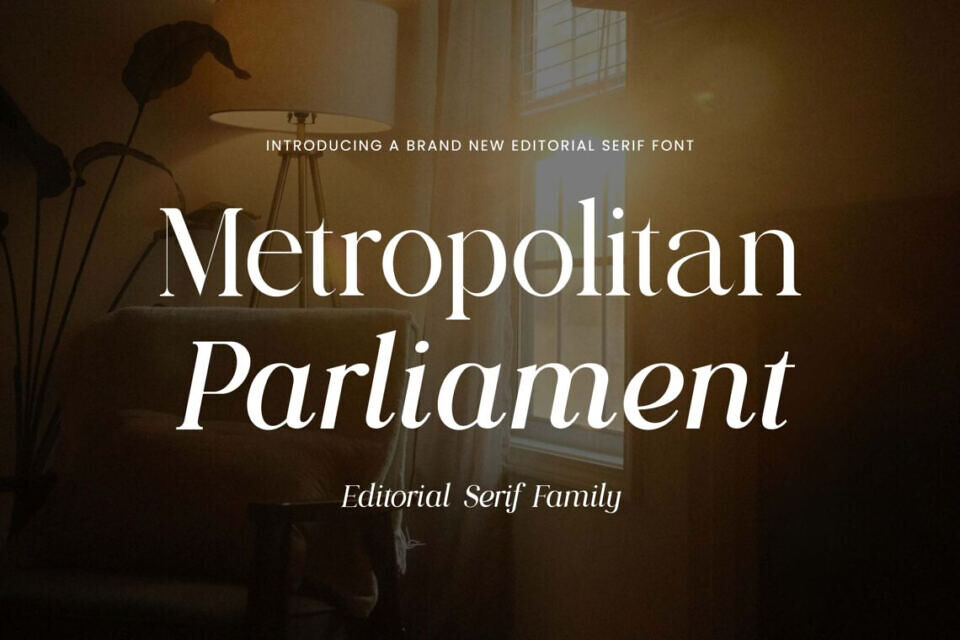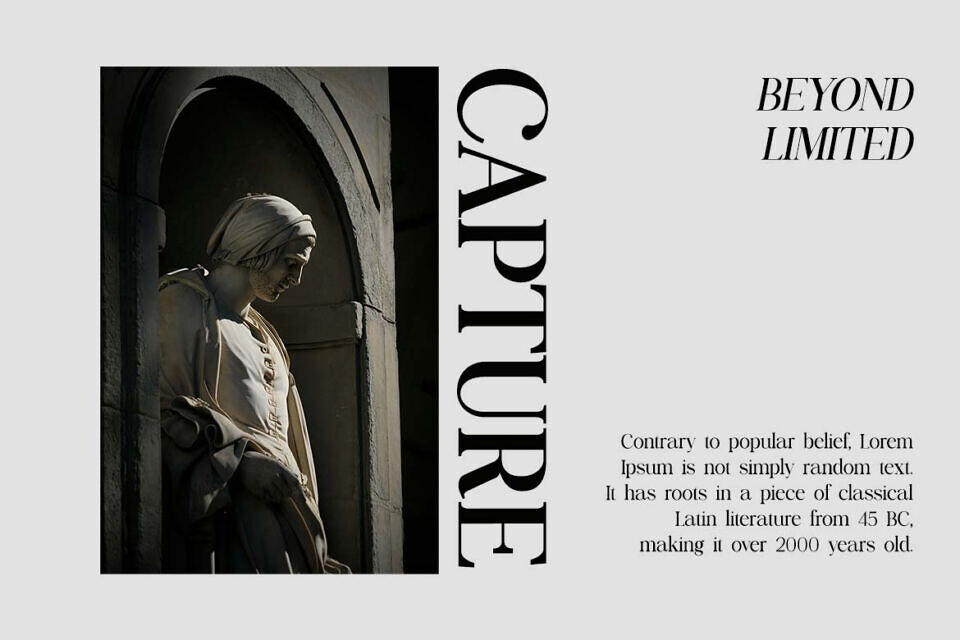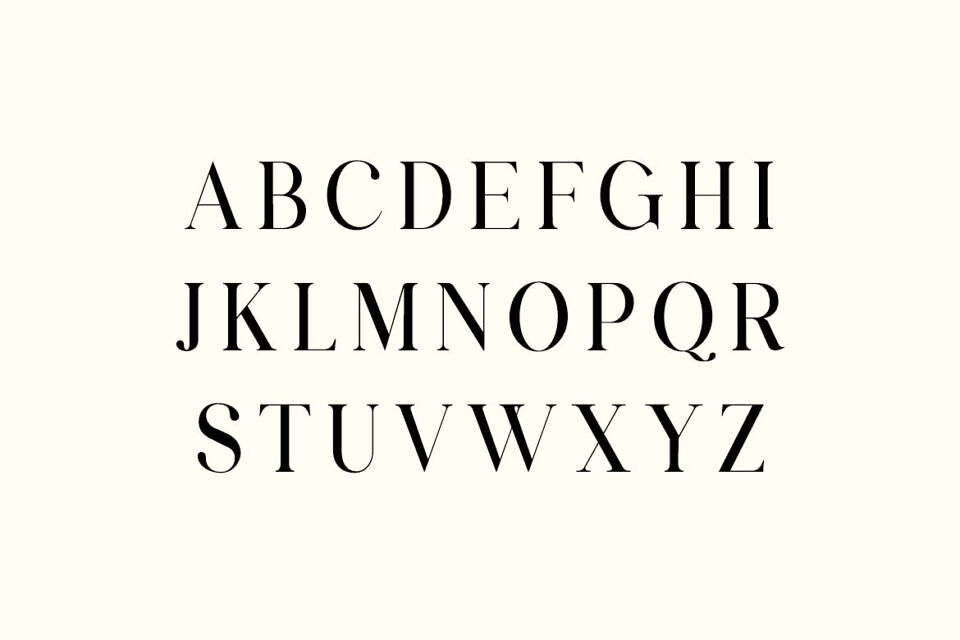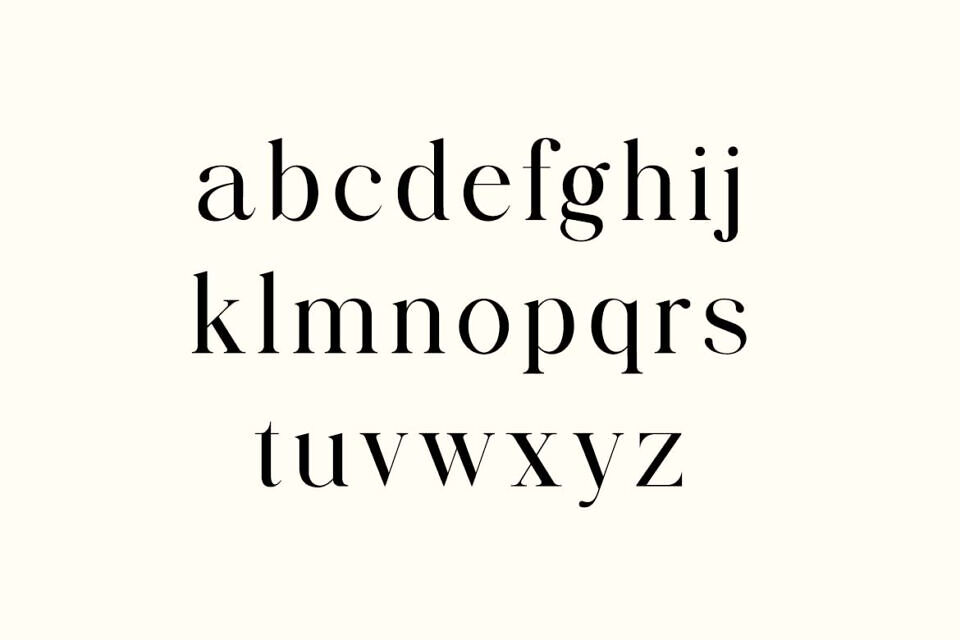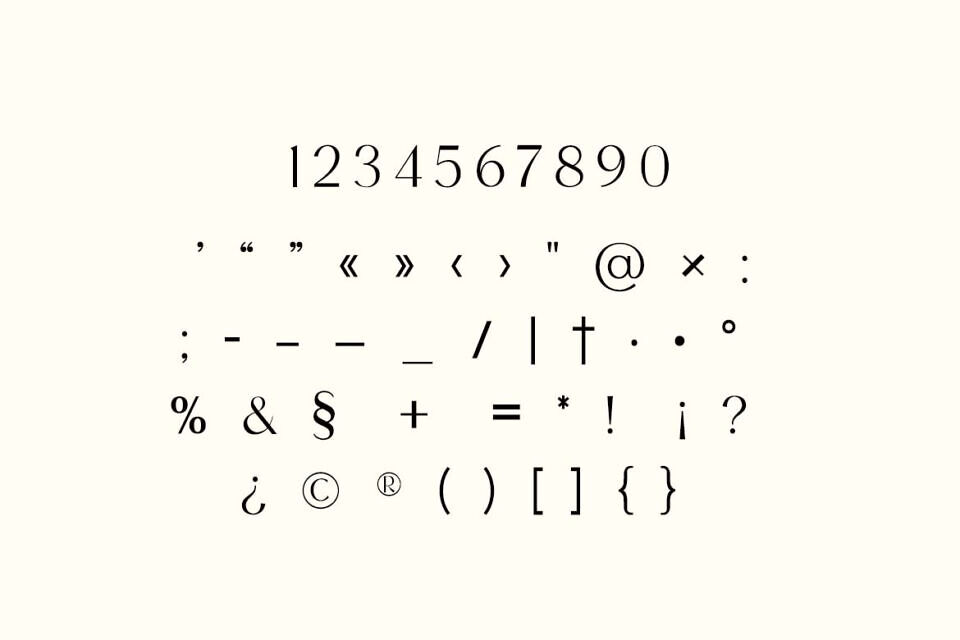
The Metropolitan Parliament font is a sophisticated serif typeface. Its modern design exudes elegance and style, making it perfect for various projects, including logos, wedding materials, and editorial content.
This versatile font family suits both masculine and feminine aesthetics, particularly in fashion branding and publishing, and can be used for a range of applications, from stationery to website headers. Nine weights are included, from Thin to Extended Bold, with their respective italic versions.